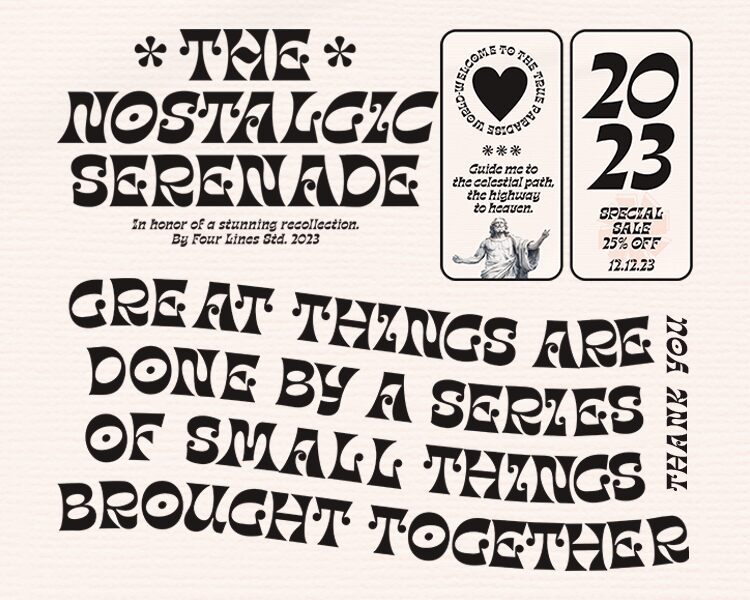
Nostalgic Serenade font family by Four Lines is a free font family with impressive features and artistic visual elements. The font family contains 2 analogically looking font styles that complement each other. The title combines two wonderful elements: nostalgic and serenade, both of which the viewer will sense whenever he gazes upon the font. Romantic writings are what this font style excels at, even if it is retro and groovy, to begin with. The combination of old styles with modern ones gives this font a unique visual appearance.
The typeface is decorative and suitable for both headlines and titles. It has numerous potential uses in invitations, stationery, labels, cards, advertising, and packaging. The typeface can come in handy in posters, typography design projects, quotes, magazine covers, and much more.